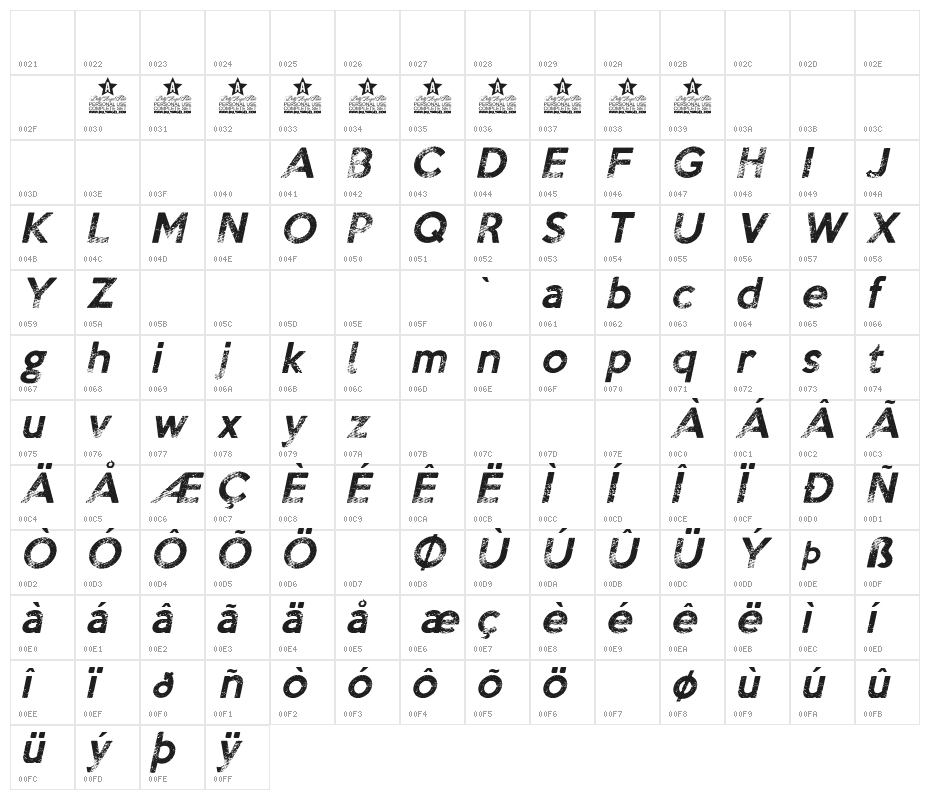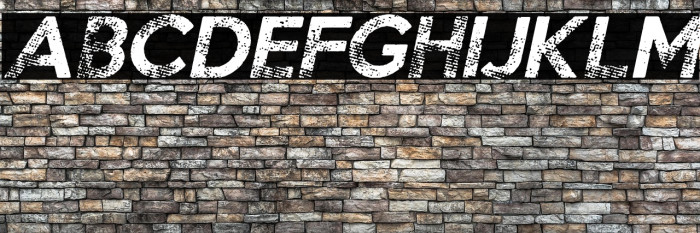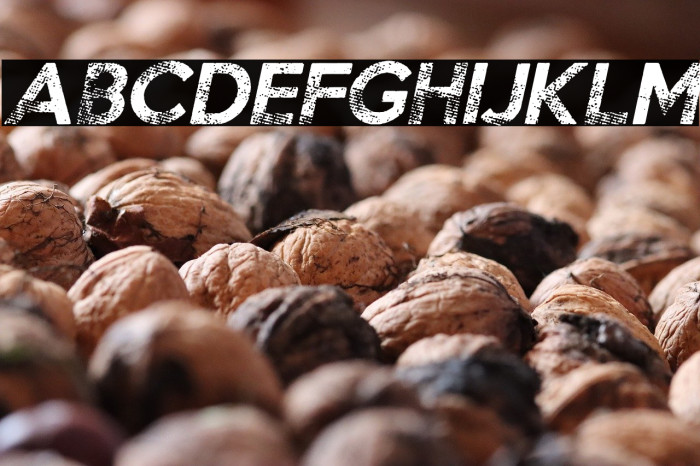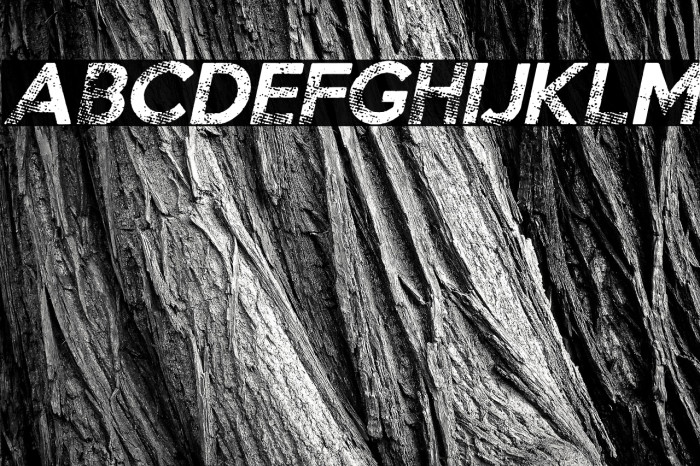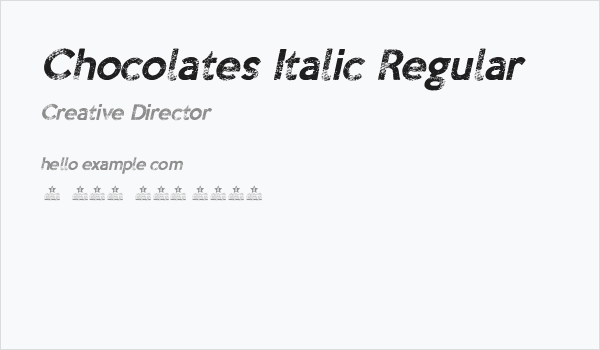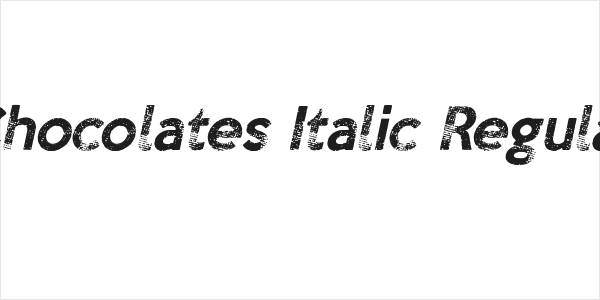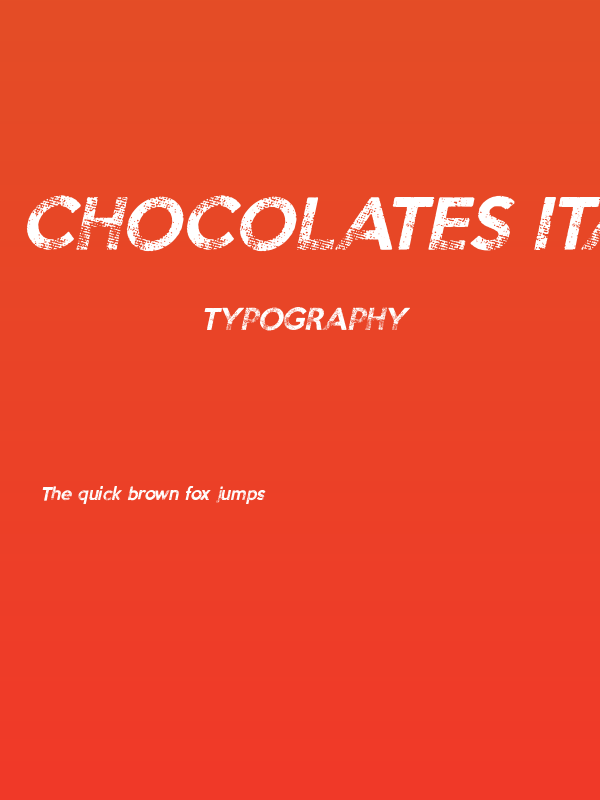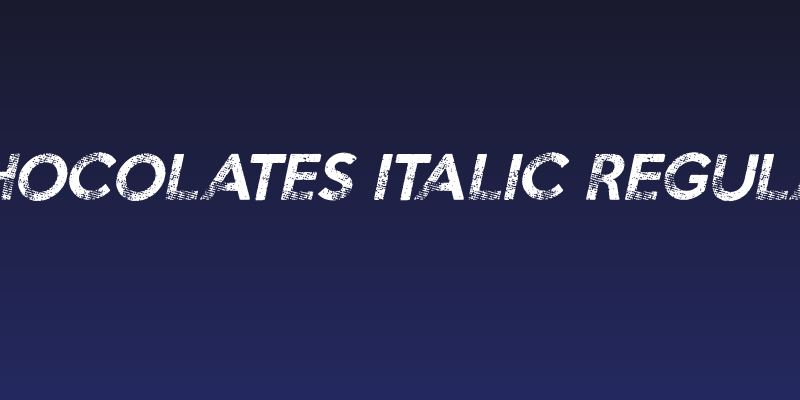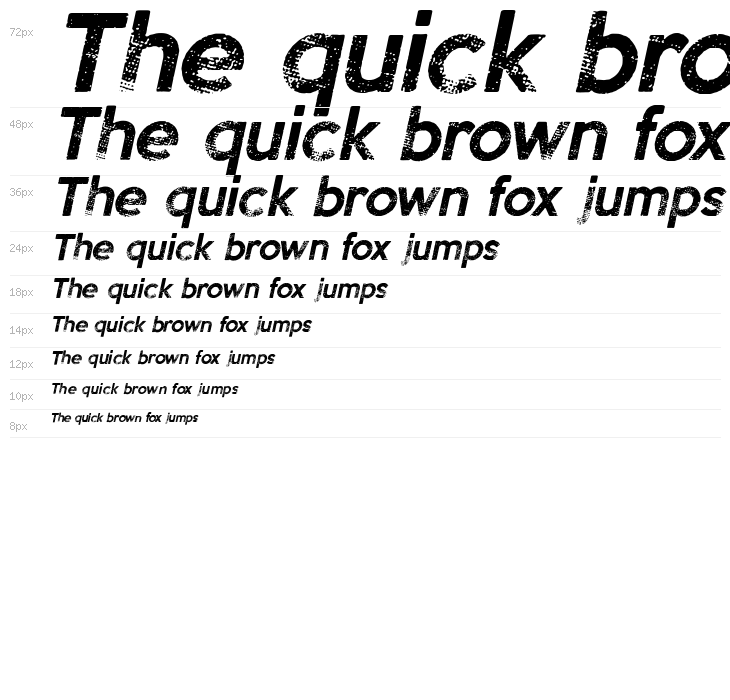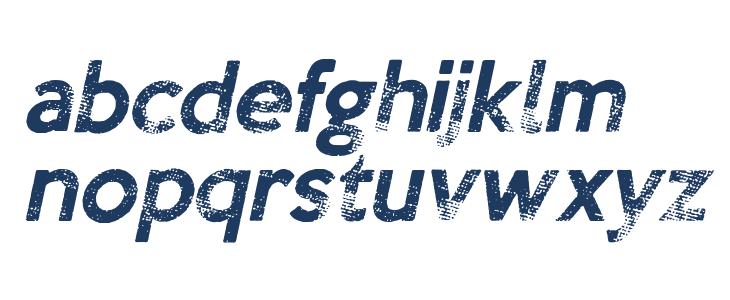
Chocolates Italic Regular Font
Chocolates Italic Regular Description
This font features a bold, italic style with a distressed texture that gives it a rugged and edgy appearance. The uppercase and lowercase letters are slanted, adding a dynamic and energetic feel. The texture appears as if the letters have been worn or scratched, providing a unique and eye-catching look. This font is perfect for projects that require a bold statement or a vintage, grunge aesthetic. The characters are well-defined despite the distressed effect, ensuring readability while maintaining a distinct style.
| Overall Style | Grunge, Vintage |
| Proposed Projects | Ideal for posters, album covers, branding for edgy products, or any design requiring a bold, vintage look. |